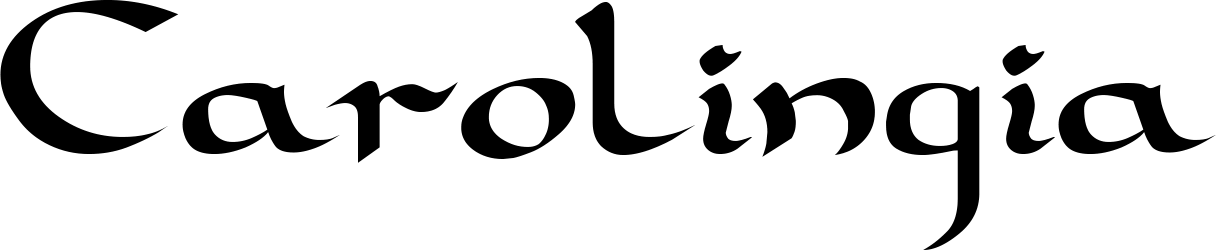
Carolingia Font
Designed byWilliam Boyd
Transmitting a sense of dread and horror to young audiences is one of the most important strategies in content production to increase the effectiveness of graphic content and engage people. Carolingia is a gothic font that is commonly used to produce teen-specific content such as posters, brochures, and video game logos.